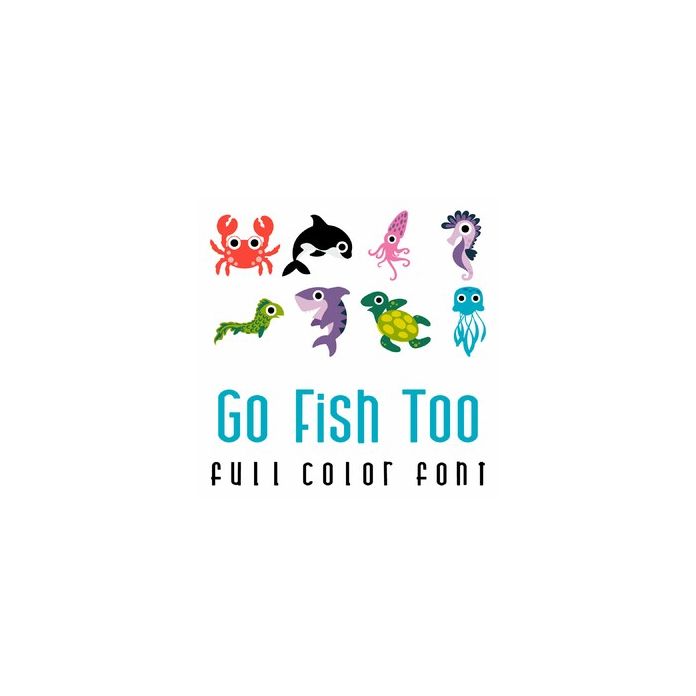
This adorable full color doodlebat font features adorable fish and puns. Perfect for cards, crafts, gifts, decor, scrap book pages, planner stickers and more!